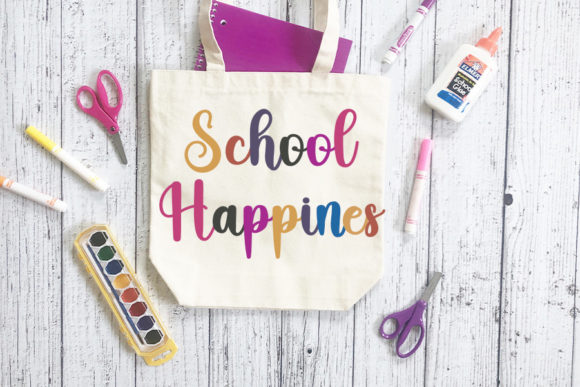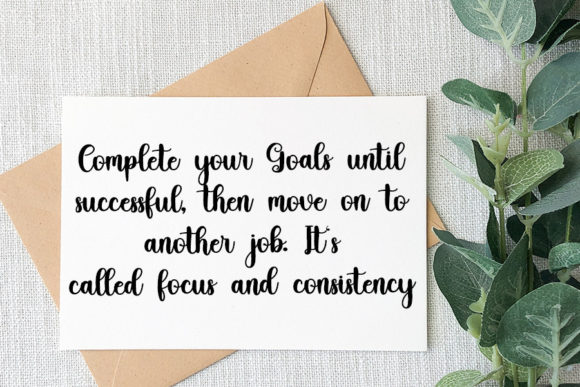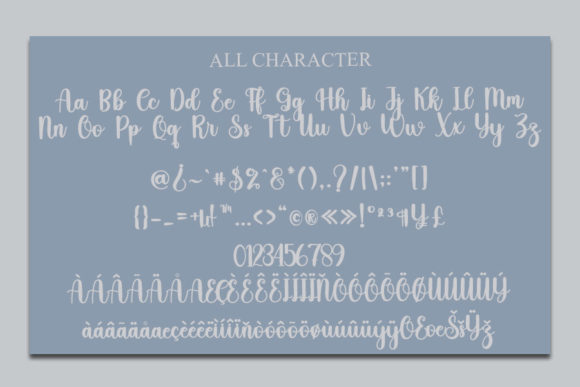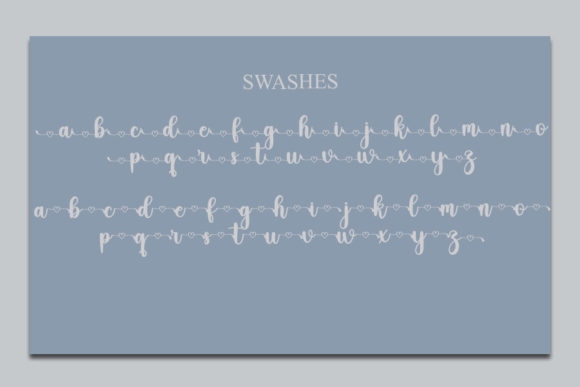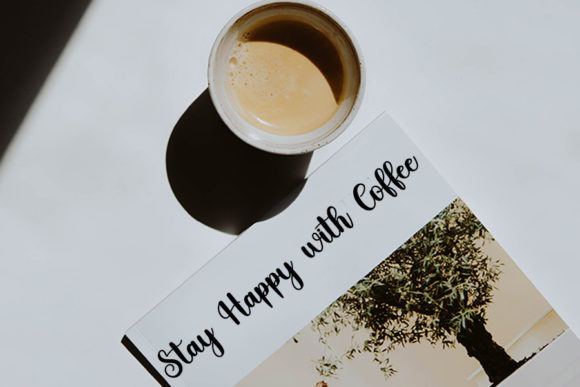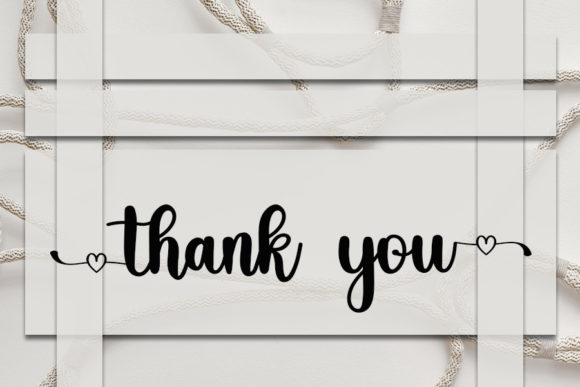
About Variation Font
Variation is a romantic script font. This delicate script has a wide spectrum of applications ranging from greeting cards to headlines and logos. Variation is PUA encoded which means you can access all glyphs and swashes with ease!